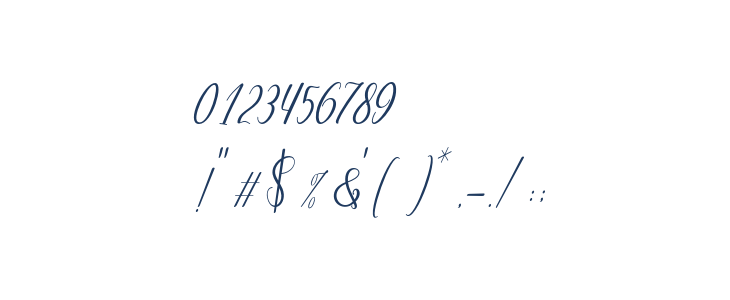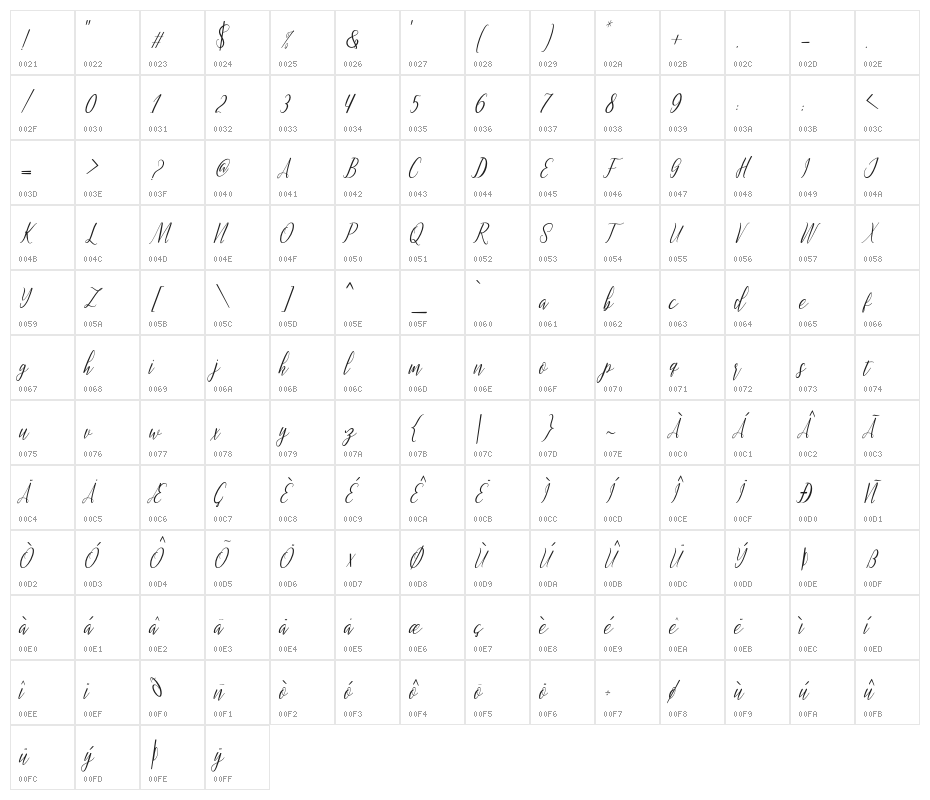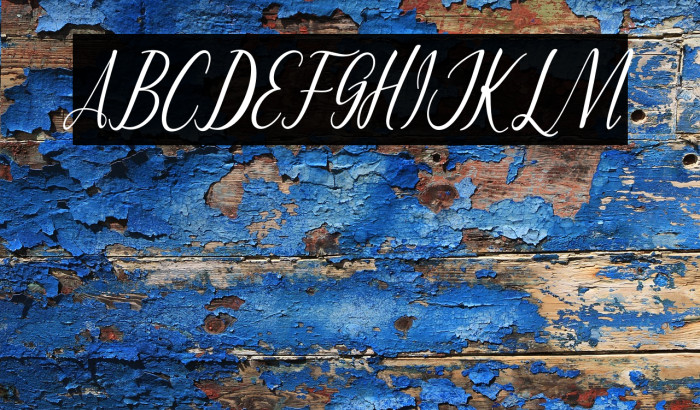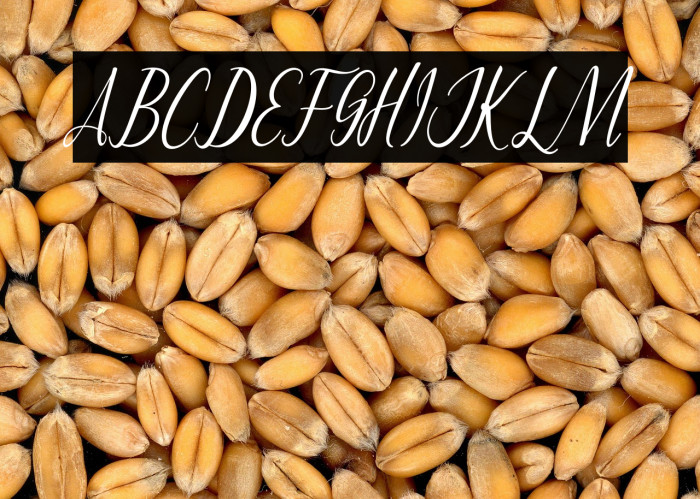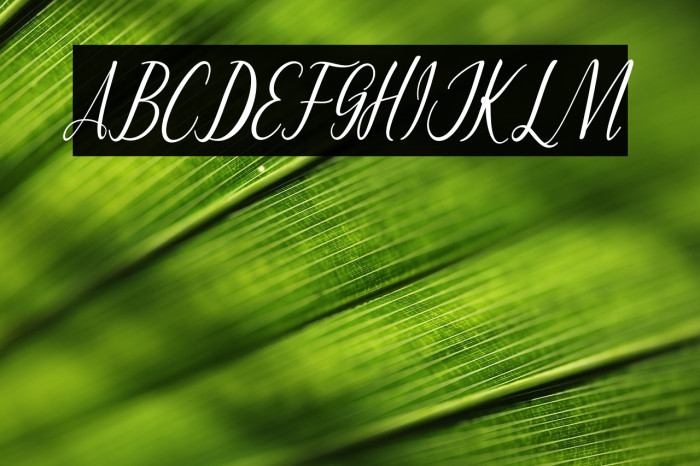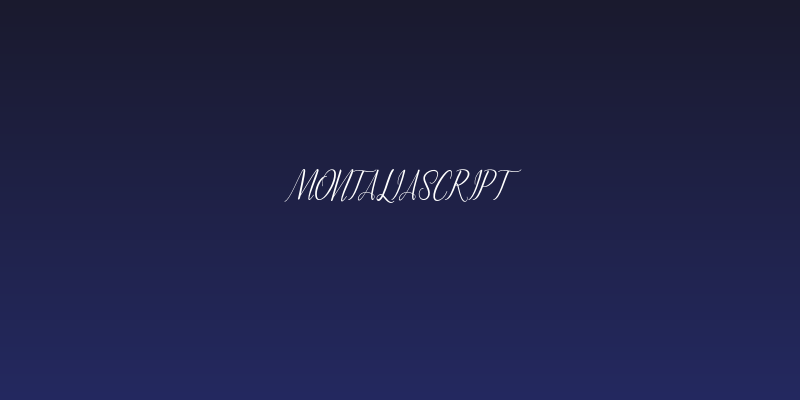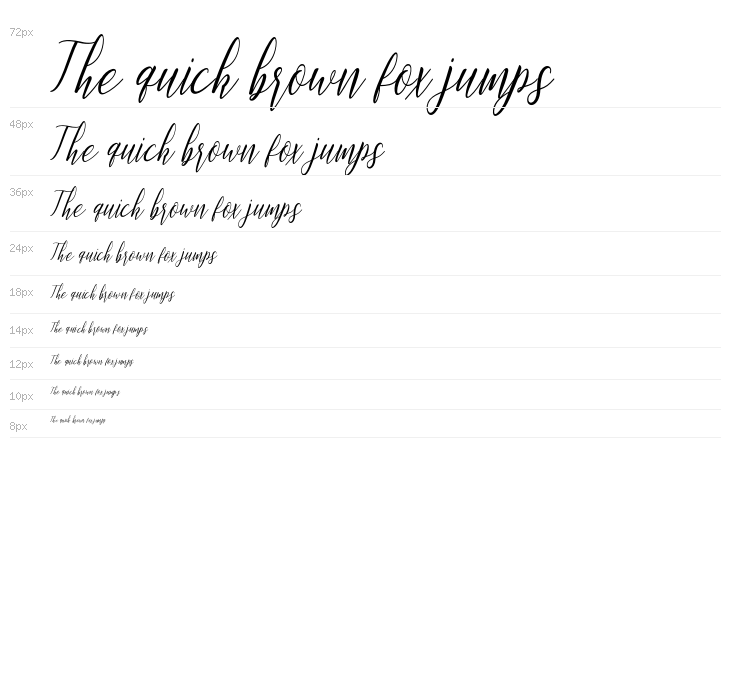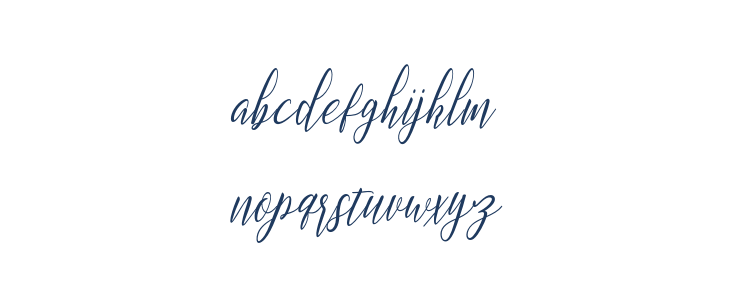
MontaliaScript Font
MontaliaScript Description
This elegant script font features a flowing, cursive style with smooth, connected strokes that evoke a sense of sophistication and grace. The uppercase letters are tall and slender, with delicate loops and swashes that add a touch of flair. The lowercase letters maintain a consistent flow, with gentle curves and a slight slant that enhances readability. The numerals are designed to match the overall aesthetic, with a harmonious blend of curves and straight lines. Special characters are thoughtfully crafted to complement the script's fluidity, making it suitable for a variety of design applications. The font's overall appearance is both classic and modern, offering versatility for creative projects.
Overall StyleElegant, Classic
Use CaseLogos, Invitations, Decorative text
Proposed ProjectsIdeal for wedding invitations, branding, greeting cards, and elegant packaging designs.